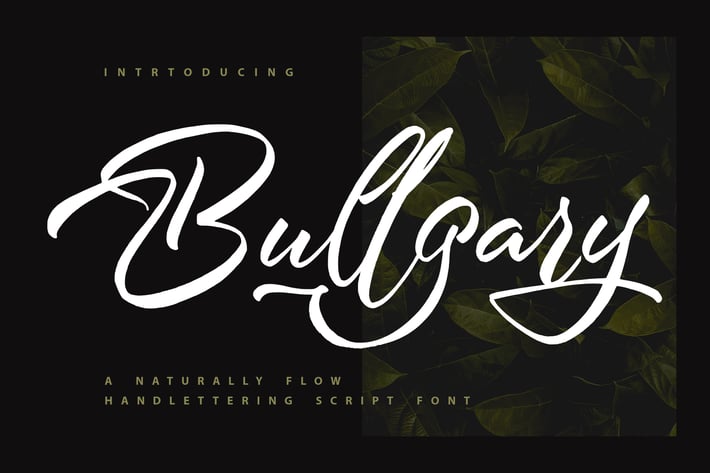
Bullgary | Naturally Handlettering Script Font
Bullgary | Naturally Handlettering Script Font with a calligraphy style, So beautiful on invitation like greeting cards, branding materials, business cards, quotes, posters, and more!